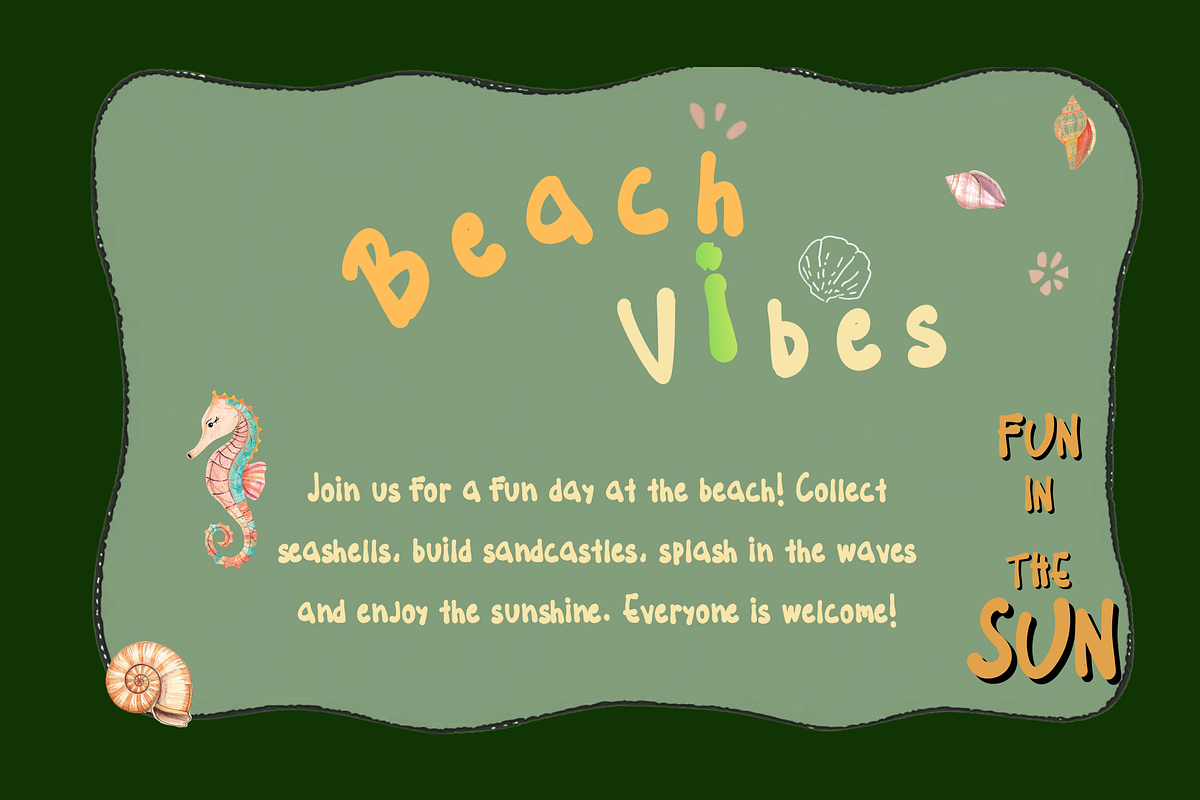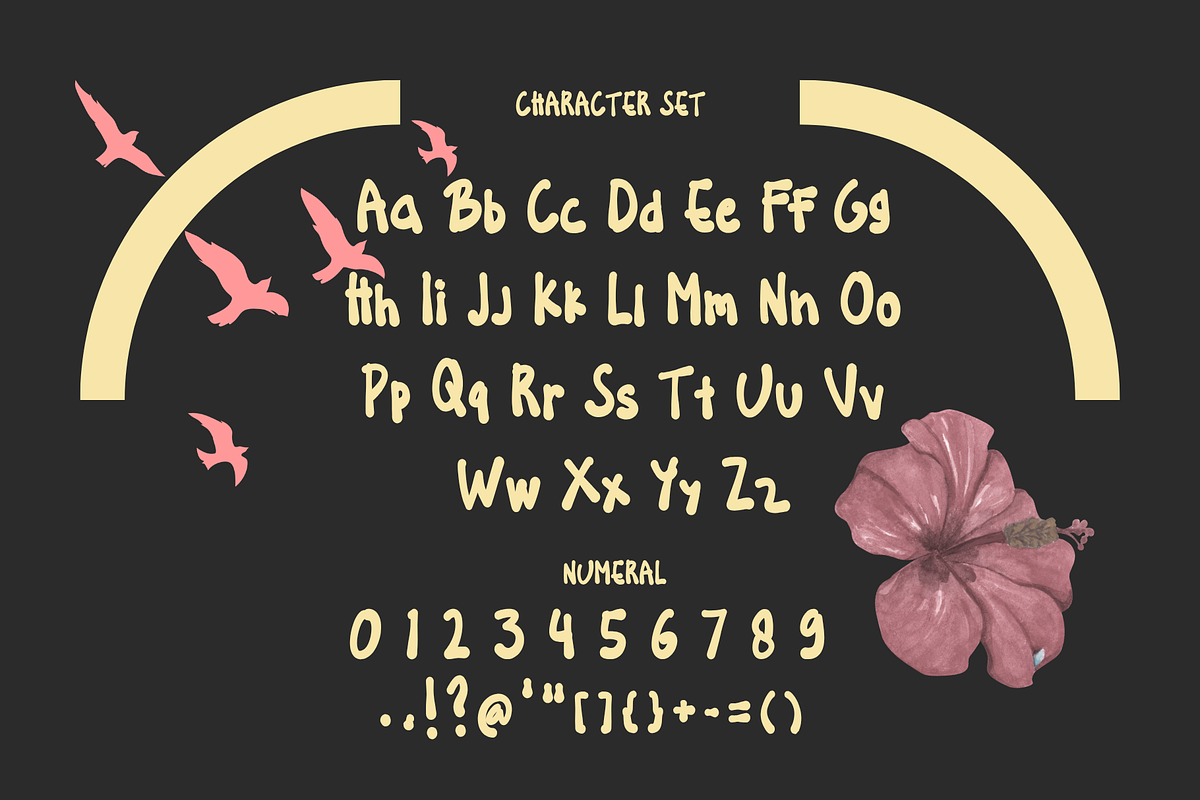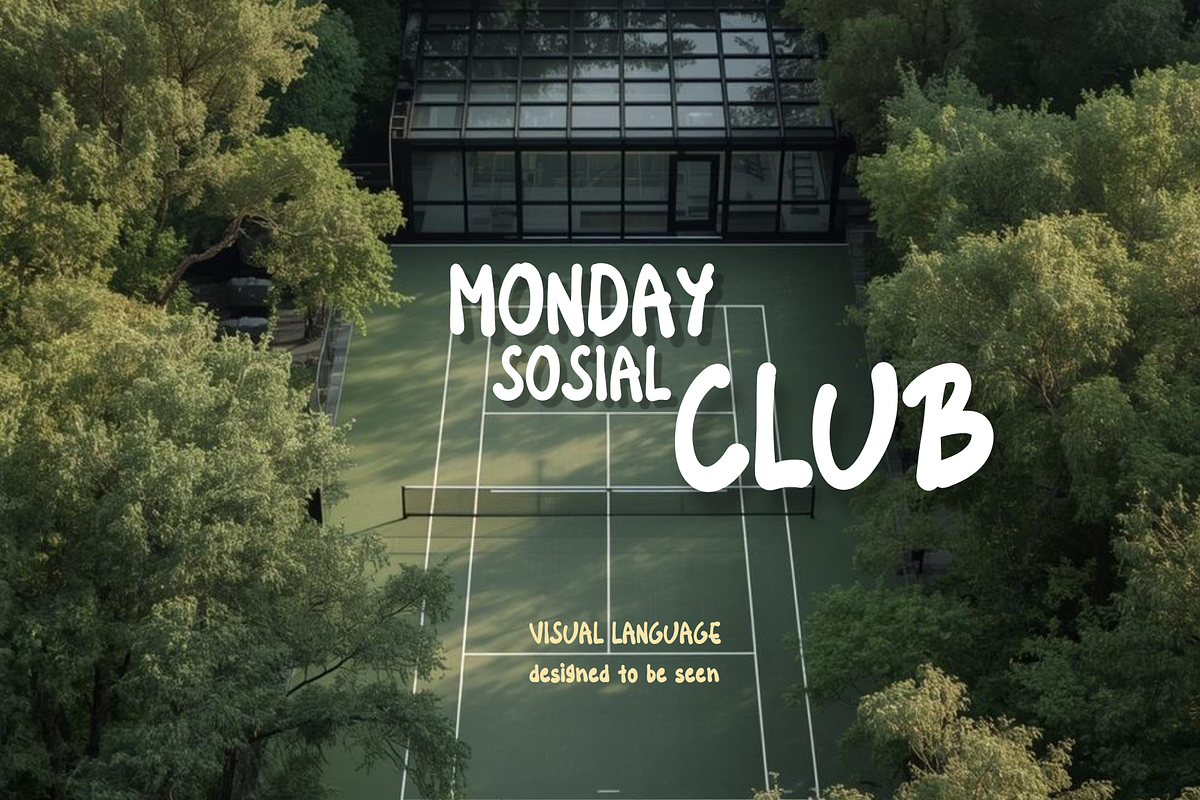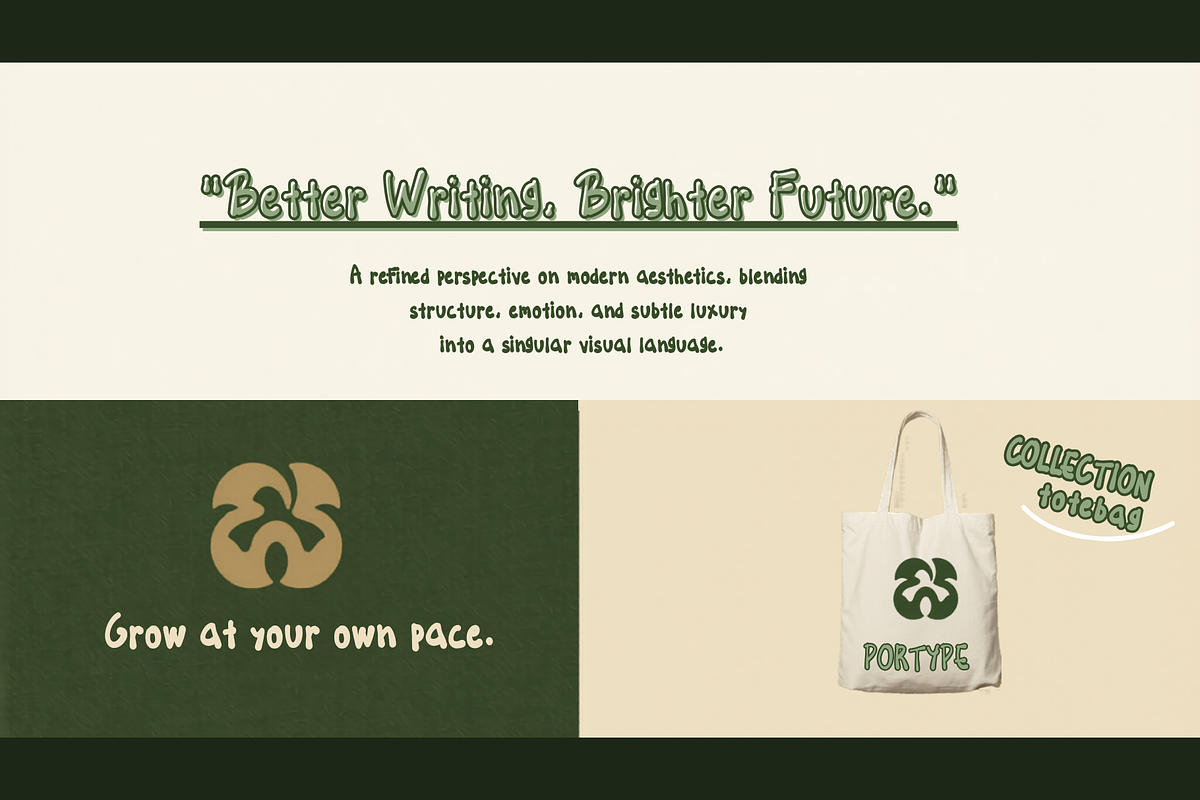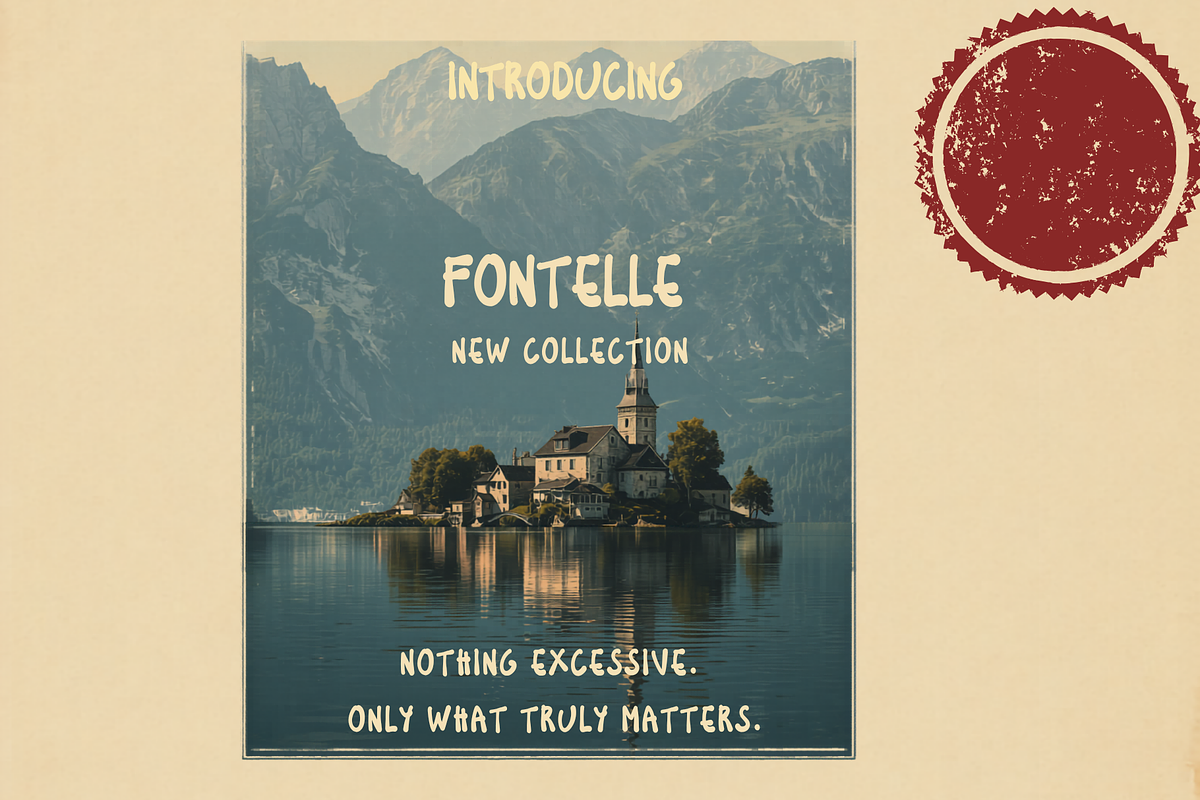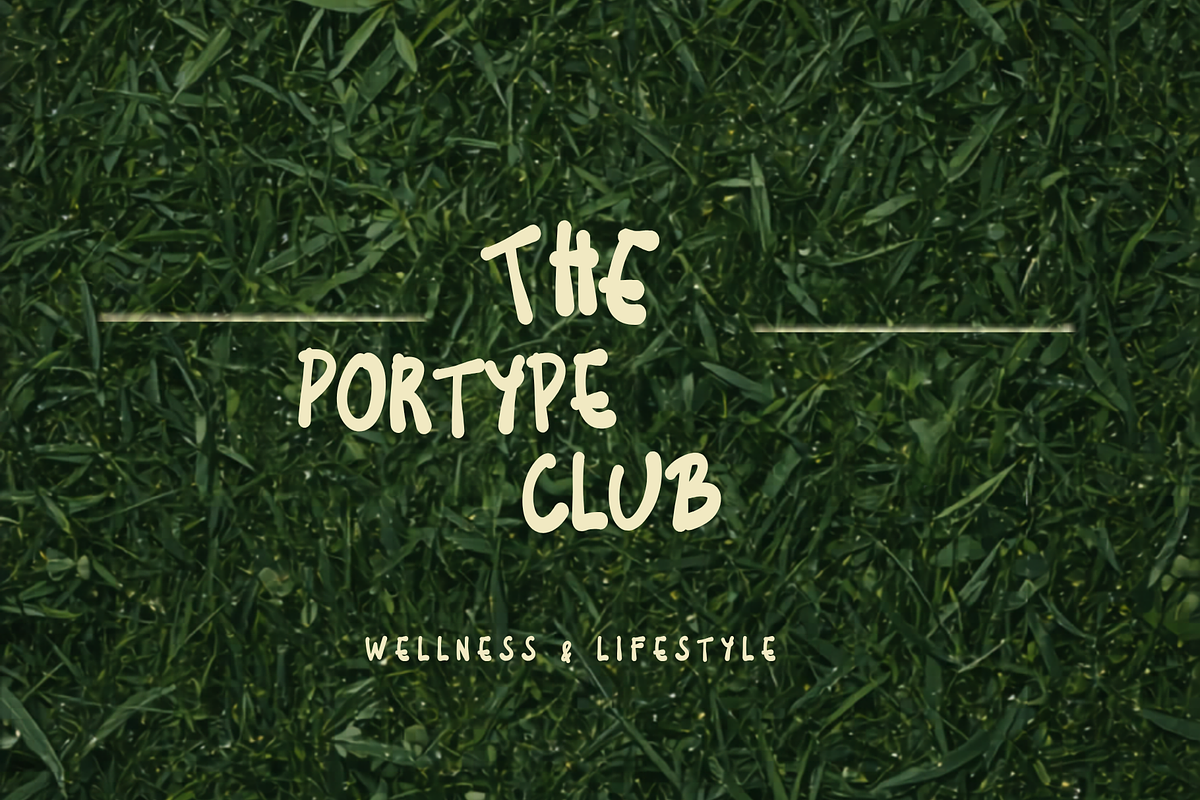
Fontelle
FONTELLE is a clean and modern handwritten typeface inspired by simplicity, balance, and natural elegance. Designed with smooth curves and a relaxed structure, this font delivers a calm and refined look that feels both contemporary and timeless. Its subtle imperfections add a human touch, making every word appear soft, organic, and visually appealing.
FONTELLE combines readability with a gentle handwritten character, allowing it to work seamlessly across a wide range of design styles. Whether used in minimal layouts or expressive compositions, it maintains clarity while adding personality.
Perfect for branding, lifestyle content, posters, social media graphics, packaging, and editorial design, FONTELLE helps create visuals that feel warm, modern, and effortlessly stylish. It is especially suitable for projects that emphasize simplicity, nature, and meaningful storytelling.
Whether you're building a clean brand identity or crafting aesthetic content, FONTELLE brings a natural and balanced handwritten feel that enhances any design.